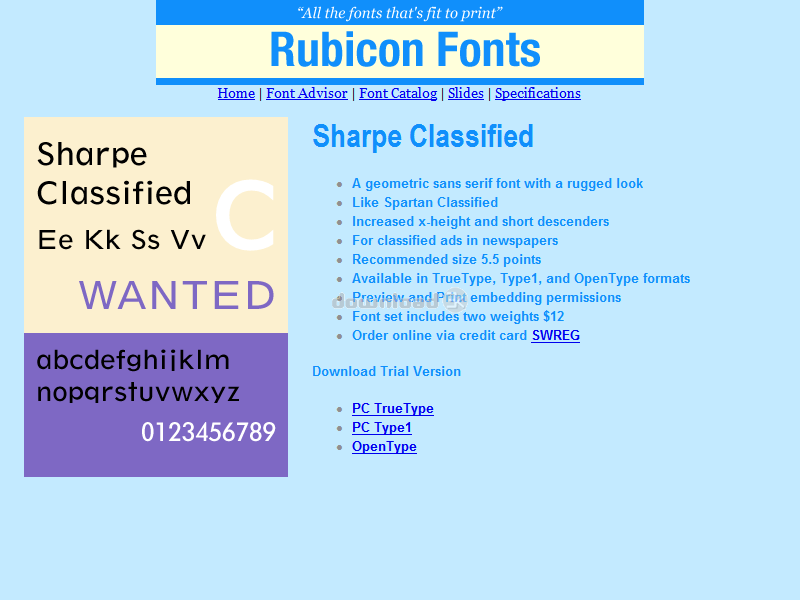
"Geometric sans serif font, rugged look"
A geometric sans serif font with a rugged look. Like Spartan Classified. Features increased x-height and short descenders. For classified ads in newspapers. Recommended size 5.5 points. Accurate and hinted, matching font metrics, standard character set, kerning pairs. Professional print quality for inkjet, laser, typesetter to 3500 dpi. Purchasers receive 2 font variants as follows: Normal, Bold.Requirements: Older versions of Windows require Adobe Type Manager.